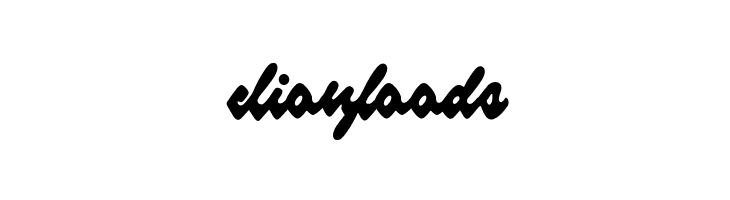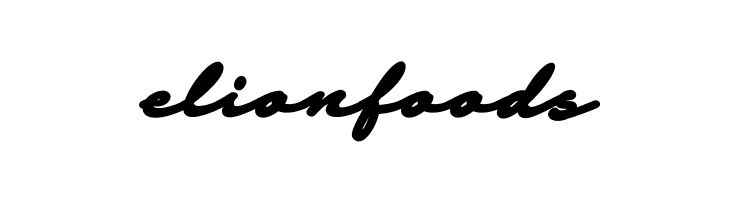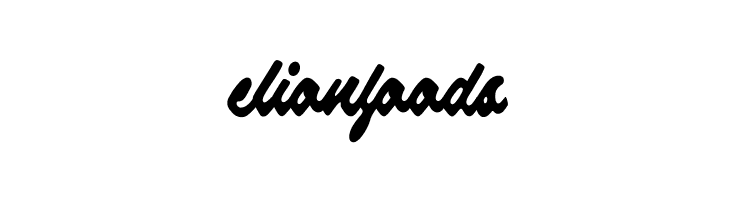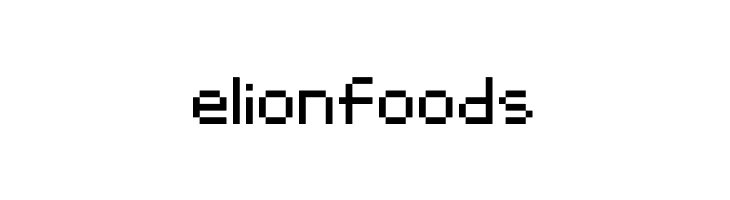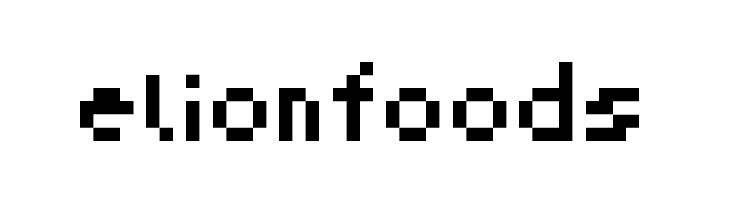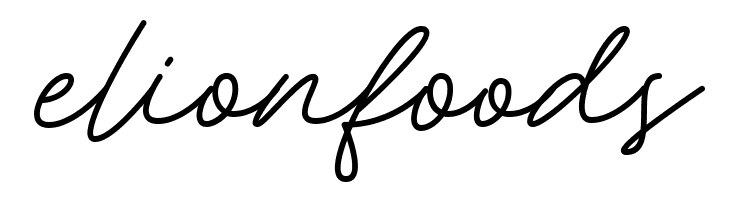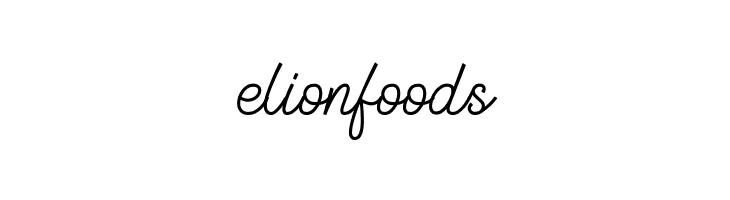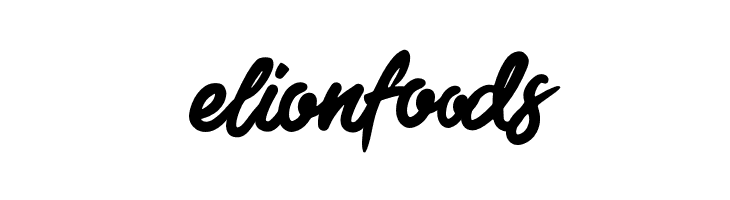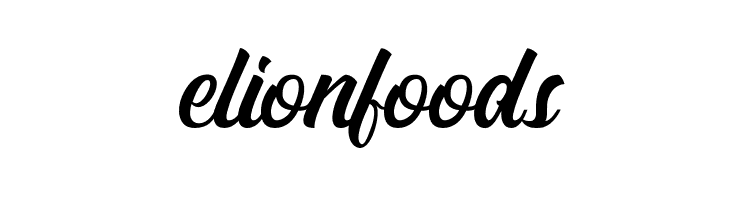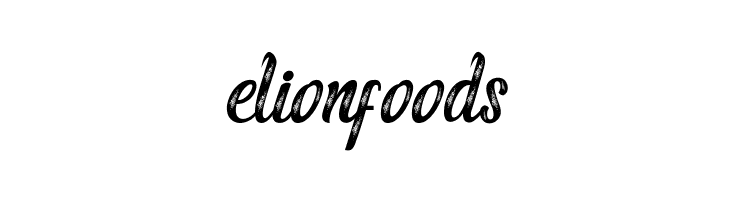
( Måns Grebäck - www.mansgreback.com )
A bold, flowing script font with a modern, playful style.
( Måns Grebäck - www.mansgreback.com )
A bold, cursive font with interconnected characters and high contrast.
( Måns Grebäck - www.mansgreback.com )
A bold, cursive font with smooth, flowing lines and a dynamic, elegant style.
( Måns Grebäck - www.mansgreback.com )
A bold, dynamic script font with high contrast and fluid connections.
( Måns Grebäck - www.mansgreback.com )
A bold, cursive font with a flowing, handwritten style.
( Måns Grebäck - www.mansgreback.com )
A bold, cursive script font with a playful and energetic style.
( Måns Grebäck - www.mansgreback.com )
A bold, cursive script font with a playful and energetic style.
( Nadhira Felani )
A graceful, flowing script font with elegant, connected characters.
( NewMoleFont )
A pixelated, retro-style font with a blocky, digital appearance.
( Noschey! )
A playful, handwritten font with irregular strokes and a lively feel.
( OldStudioo - Muhammad Ilham - www.fontdraft.com )
A graceful, handwritten script font with elegant, flowing lines.
( Petyka - www.petyka.com )
A bold, geometric font with a pixelated, retro style.
( Rajendra Bitling - www.rbitling.com )
A bold, italic calligraphic font with fluid, interconnected strokes.
( RevStudio )
A pixelated, retro-style font with a digital, blocky appearance.
( Rifan Asri )
A bold, slanted brush-style font with textured strokes and expressive character.
( Roland Huse Design - Roland Huse - rolandhuse.com )
A flowing, cursive script font with elegant, interconnected letters.
( Ryan Williamson )
An ultra-thin, modern font with elegant, clean lines.
( Saridezra - creativemarket.com/saridezra )
An elegant, flowing cursive font with interconnected letters.
( Sigit Nur Wicaksono - creativemarket.com/ogit )
A flowing, cursive font with elegant, interconnected strokes and a sophisticated appearance.
( Sronstudio - Yusron Billah )
A flowing, cursive font with elegant, connected letters.
( Sronstudio - Yusron Billah )
A flowing, elegant script font with connected letters and medium contrast.
( The Autumn Rabbit - Louise Ross - www.theautumnrabbit.com )
A whimsical, handwritten font with smooth, flowing lines and playful curves.
( Thirtypath - www.thirtypath.com )
A bold, expressive script font with a dynamic, handwritten style.
( Typodermic Fonts - Ray Larabie - www.typodermicfonts.com/ )
A futuristic, geometric font with rounded letterforms and a sleek, modern design.
( Vladimir Nikolic - www.coroflot.com/vladimirnikolic )
A bold representation of Braille, a tactile writing system for the visually impaired.
( Vladimir Fedotov )
Elegant, flowing script font with a cursive, italic style.
( Wacaksara Co - www.wacaksara.co )
A bold, cursive font with a flowing, handwritten style.
( Wacaksara Co - www.wacaksara.co )
A cursive, handwritten-style font with elegant, flowing strokes.
( Weape Design - creativemarket.com/weape?u=weape )
A bold, flowing script font with elegant cursive letterforms.
( Weape Design - creativemarket.com/weape?u=weape )
A graceful script font with flowing, connected strokes and elegant curves.
( Ydhra Studio - creativemarket.com/ydhra )
A bold, flowing script font with elegant curves and smooth strokes.
( Zacchary Dempsey-Plante - ztdp.ca )
A pixelated, retro-style font inspired by early digital displays.